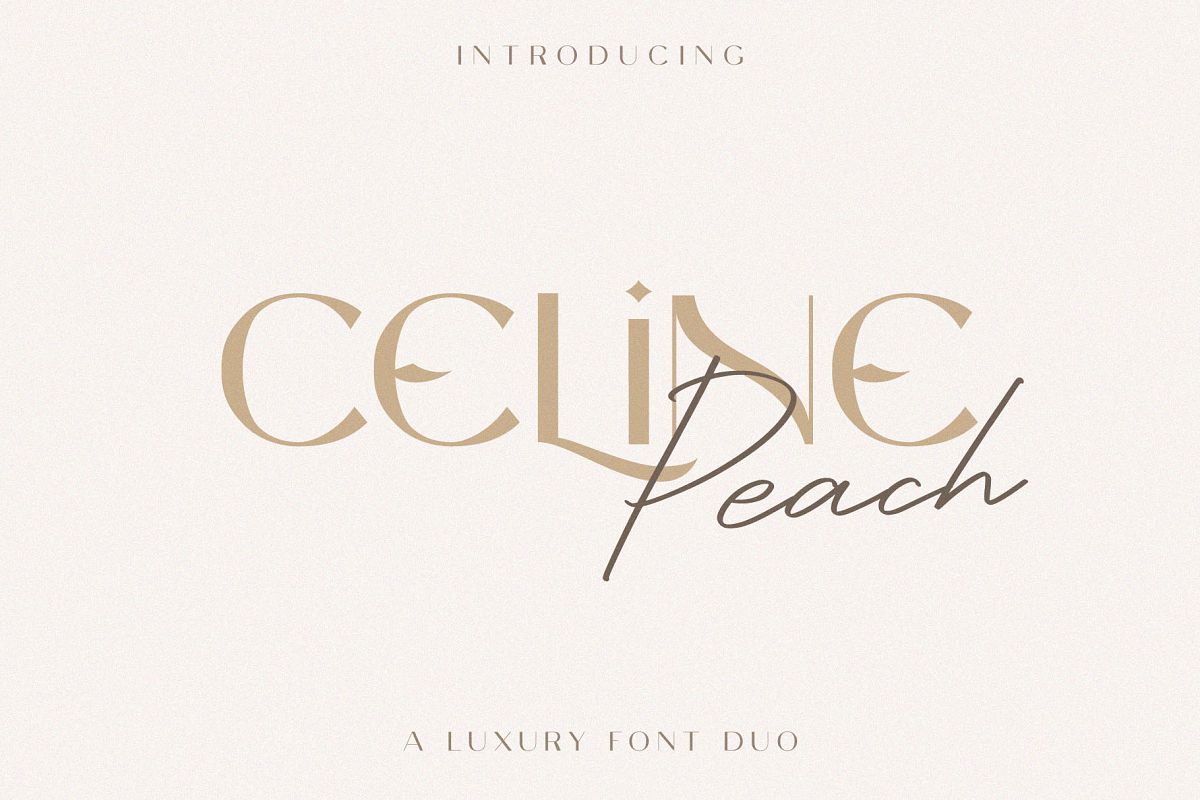
Celine Peach - A Luxury Font Duo
Celine Peach Sans
Celine Peach Script
Introducing New Font : Celine Peach - A Luxury Font Duo
Celine Peach - A Luxury Font Duo is a combination of an elegant sans serif font & beauty handwritten script font based on the expression of real handwriting. Celine Peach - A Luxury Font Duo will work perfectly for fashion, e-commerce brands, trend blogs, wedding boutiques or any business that wants to appear upscale and chic.
Celine Peach - A Luxury Font Duo also Suitable for Logo, greeting cards, quotes, posters, branding, name card, stationary, design title, blog header, art quote, typography, art, modern envelope lettering or book design, happening style like handdrawn design or watercolor design theme, craft design, any DIY project, book title, or any purpose to make your art/design project look pretty and trendy.
1. Allcaps, Uppercase & Lowercase
2. Special Alternates for Celine Peach Sans (A B C E E G H I J K L M N O P Q R Z)